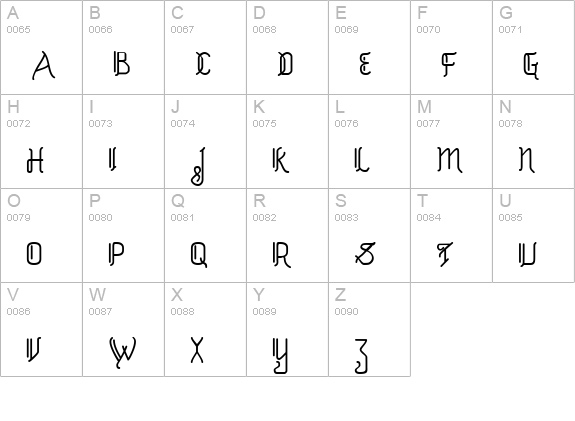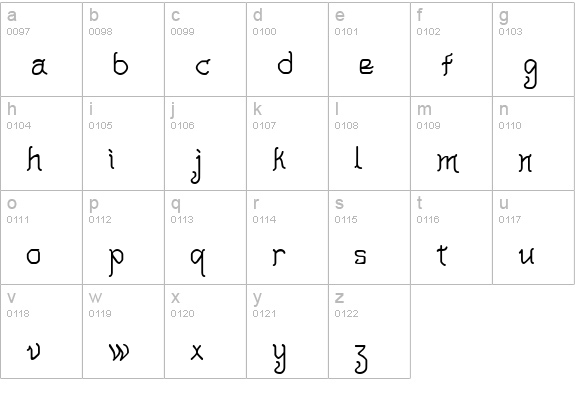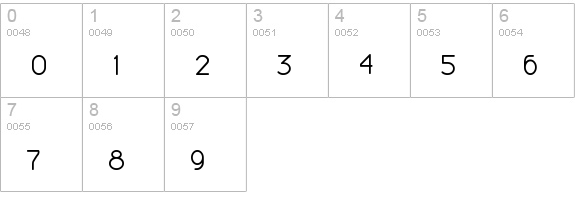
Akashi MF font is a captivating and modern typeface that exudes elegance and sophistication. Its sleek and stylish design makes it perfect for a wide range of design projects, from branding to editorial. The clean lines and sharp edges of Akashi MF font give it a contemporary feel that is both eye-catching and professional. One of the best things about Akashi MF font is that it is completely free to download. You can easily get your hands on this stunning font by visiting FontsMarket.com, where you can access a wide selection of high-quality fonts for all your design needs. Don't miss out on the opportunity to enhance your projects with the beautiful Akashi MF font, available for free download now!